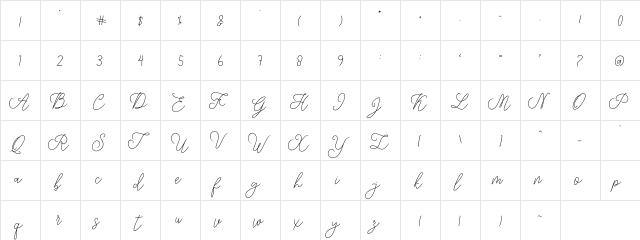
modista script Regular
Design Context for modista script Typeface
modista script flows with the natural rhythm of handwritten lettering, making it ideal for designs that call for warmth and personal expression.
Font Pairing: Combine modista script with a simple geometric sans for maximum contrast — the tension between flowing curves and clean structure is a classic typographic pairing.
Pro Tip: Pair modista script with a clean sans-serif for supporting text. The contrast between fluid script and geometric structure creates an elegant typographic hierarchy.